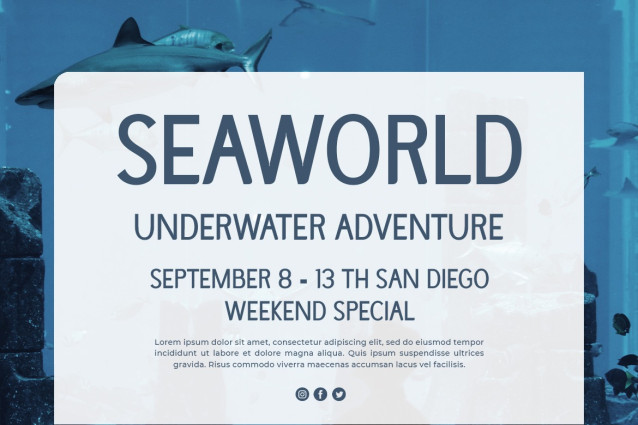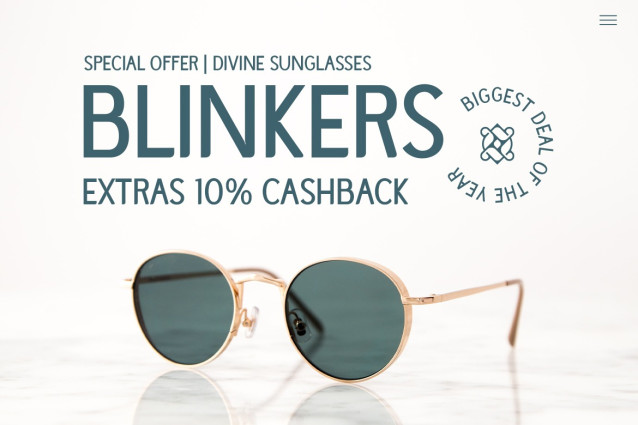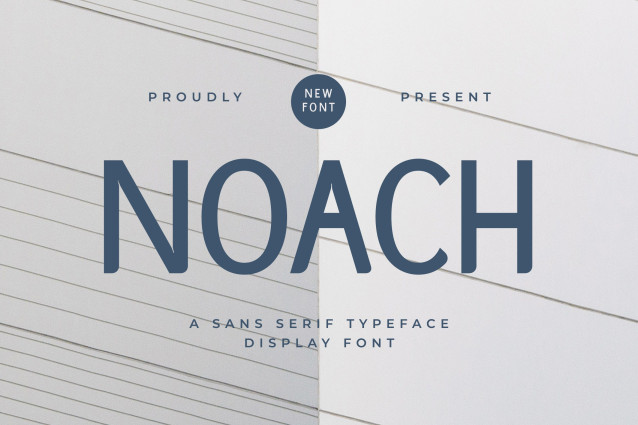
Noach Font
Noach Font – a versatile sans serif typeface that combines simplicity with contemporary design. With its clean lines and balanced proportions, “Noach” offers a modern and minimalist aesthetic. Each character is meticulously crafted to ensure clarity and readability, making it suitable for a wide range of projects, from editorial layouts and branding to web design and advertising.
Embrace the versatility of “Noach” as it seamlessly adapts to various visual contexts. Whether you’re creating sleek headlines, professional logos, clean interfaces, or engaging social media graphics, this typeface will bring a touch of sophistication and professionalism to your designs.
Experience the timeless appeal of “Noach” and elevate your visual communication!